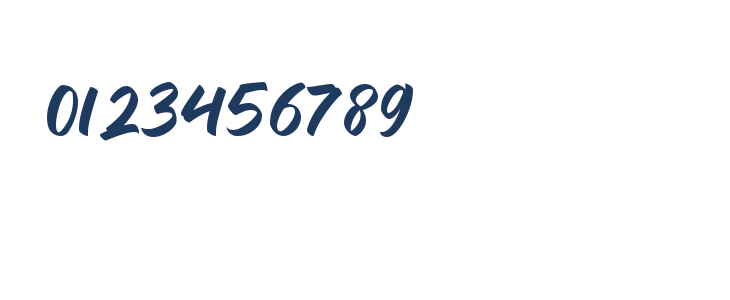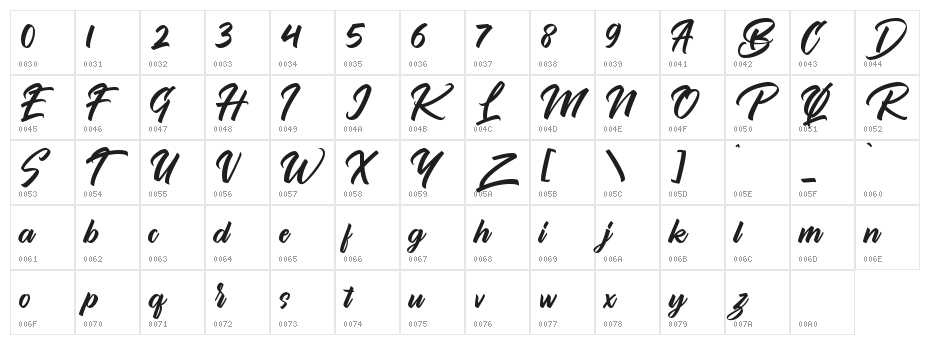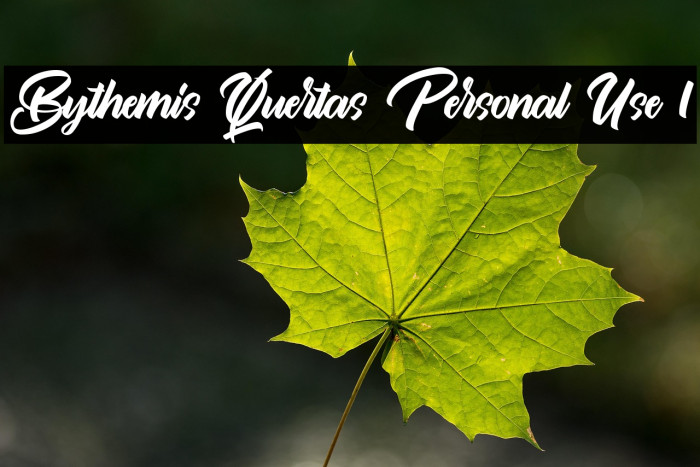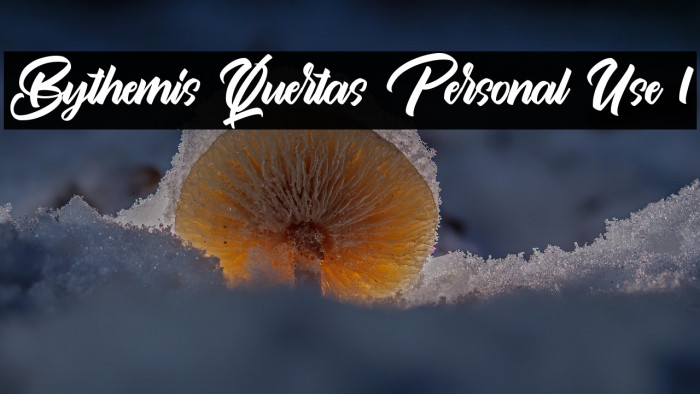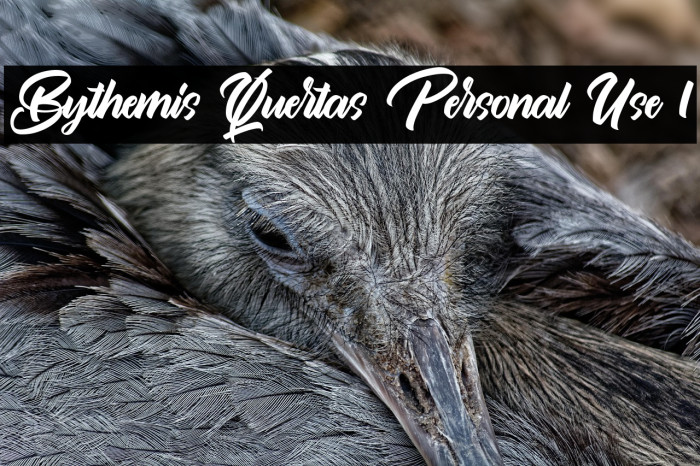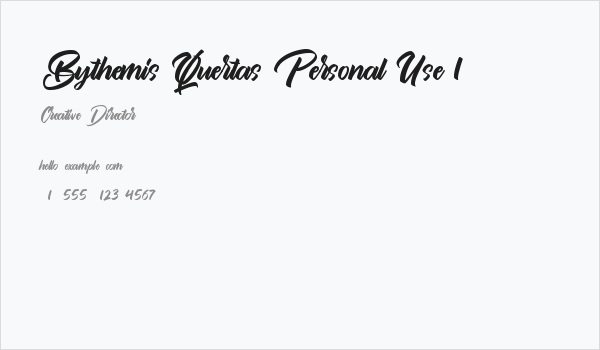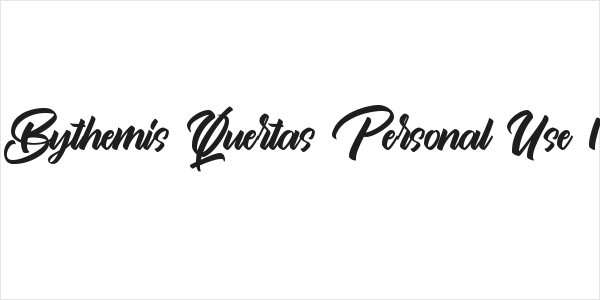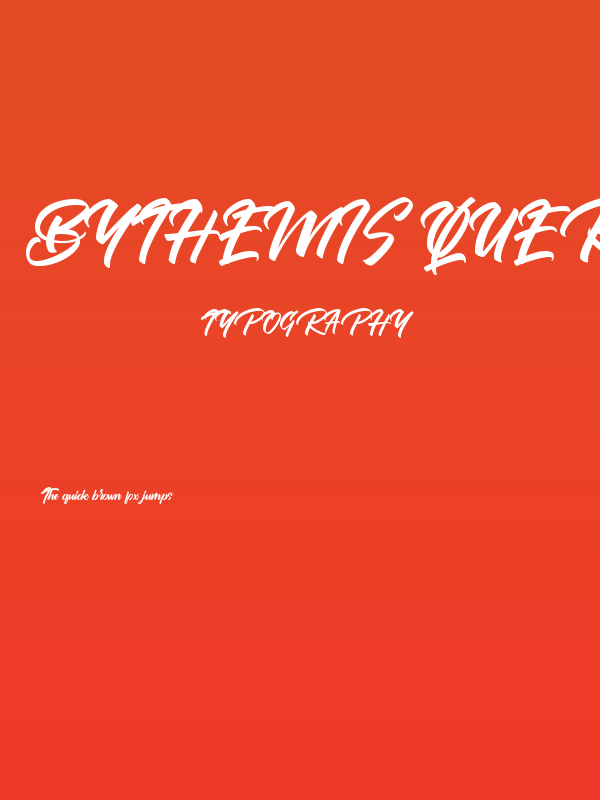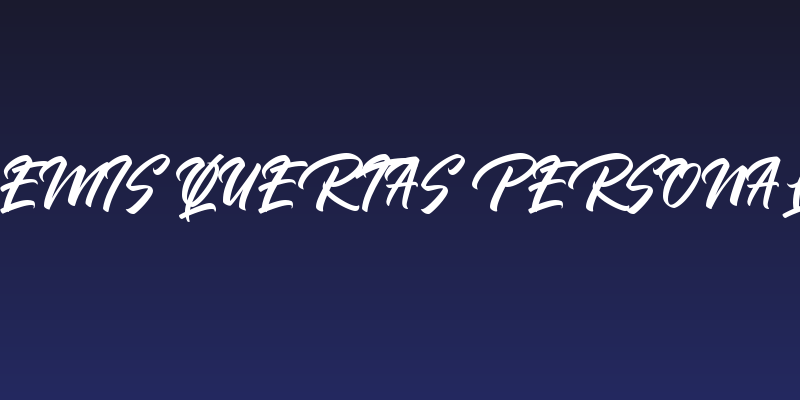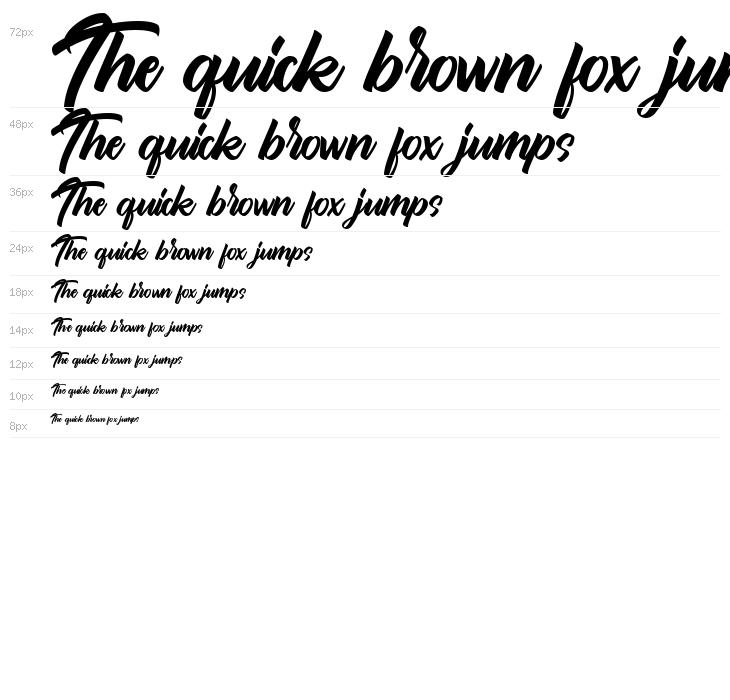
Bythemis Quertas Personal Use 1 Font
Bythemis Quertas Personal Use 1 Description
This font features a bold, flowing script style that exudes elegance and flair. The characters are intricately designed with smooth, sweeping curves and a dynamic, hand-drawn appearance. The uppercase letters are particularly striking, with a sense of movement and rhythm that captures attention. The lowercase letters maintain a consistent style, complementing the uppercase with their fluidity and grace. Numbers and special characters are equally well-crafted, ensuring a cohesive look across all text elements. This font is ideal for projects that require a personal touch, such as invitations, branding, and creative designs.